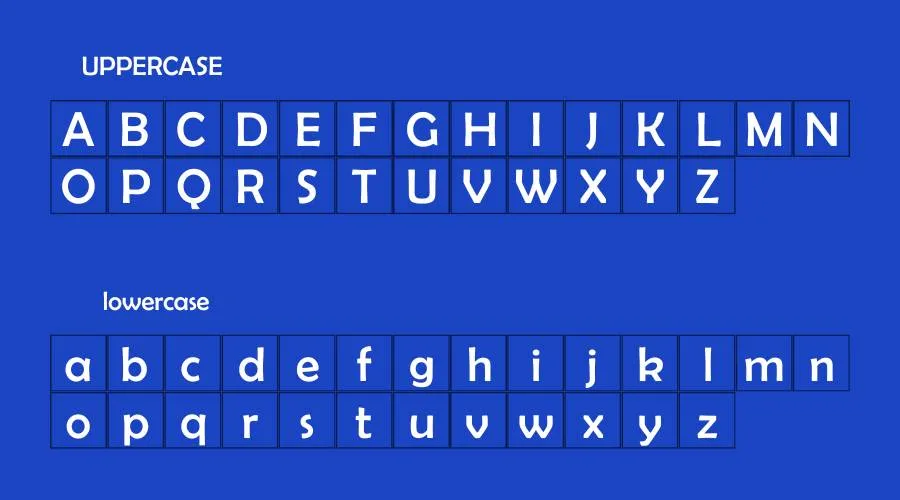
About Berlin Sans FB Font
Berlin Sans FB Font is a creative typeface, which was designed by David Berlow. This font, which is part of The Font Bureau collection of typefaces, is a versatile sans serif typeface with a variety of weights and styles. It has an elegant, modern look with a subtle nod to the traditional forms of German typography.
In addition, it supports a variety of languages and international character sets, making it perfect for global branding applications. The design of the Berlin Sans FB font was based on the classic Grotesk sans serif model, which dates back to the 19th century. However, it has a more contemporary typeface that increases its popularity day by day.
Because of the large number of families, and weightage from thin to heavy, They are perfect for any type of your project. And you can also use the online generator tool to use this typeface in your project.
Berlin Sans FB is a great choice for corporate identities, branding, logos, packaging, and other uses because its straightforward letterforms are easy to read and its details are delicate, yet distinctive. This typeface has a large family of fonts, with eight weights ranging from Thin to Heavy, and five italics in each weight. It also has six variants, including a condensed, a wide, a black, a rounded, and a display version.
This typeface is a perfect typeface for large-size design projects for example Branding or used Banner design, Brochure design, etc. It’s a Display typeface so they increase its popularity because of its bold style. It is suitable for use in Adobe Photoshop and Canva.
Berlin Sans FB Font View
Name | Berlin Sans FB font |
Designer | David Berlow |
Style | Sans Serif |
What type of font is Berlin Sans FB?
Berlin Sans FB is a Sans serif creative typeface, that has been designed by David Berlow. This font is a part of The Font Bureau collection of typefaces.